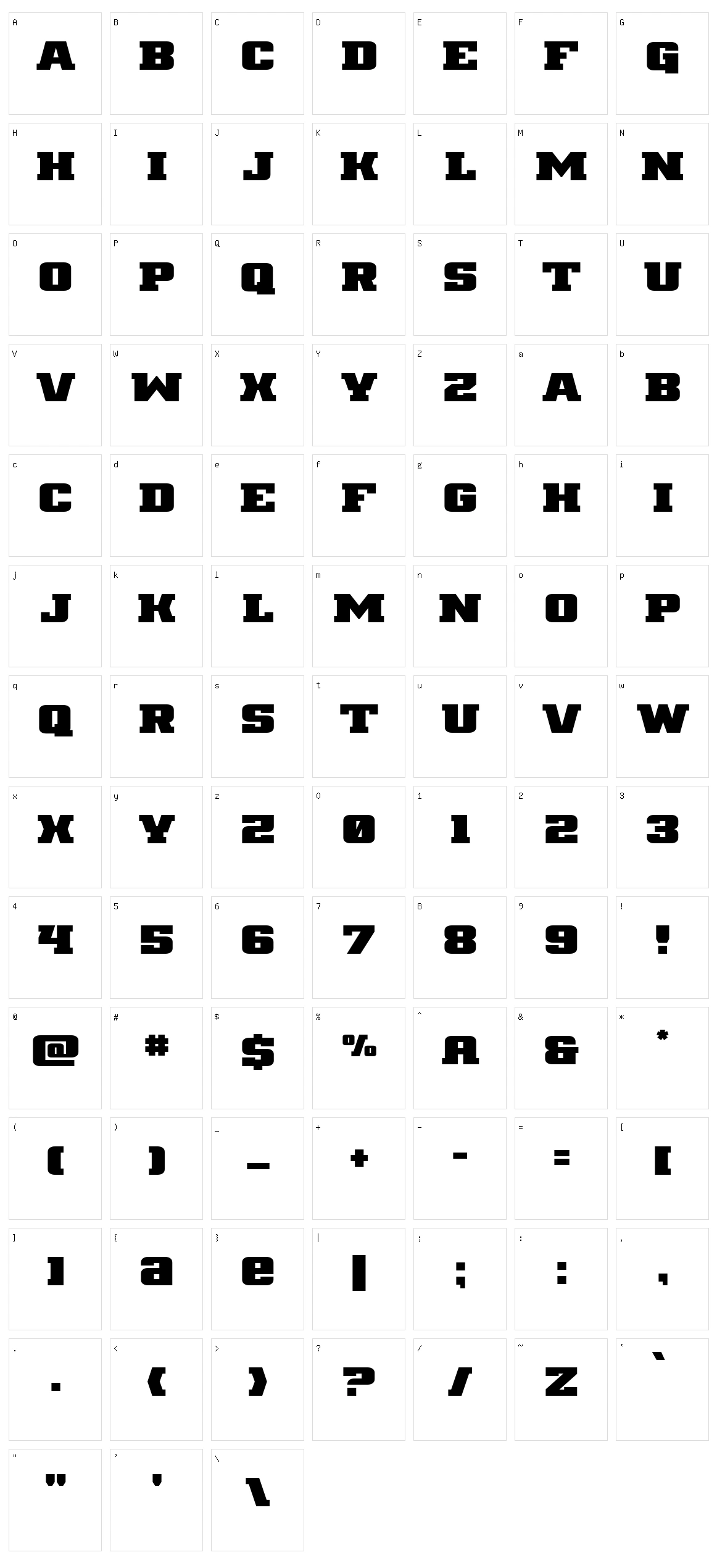
Drover Font (V ersion 1.0)
This font comes with the following 18 versions: Regular, Italic, Semi-Italic, Super-Italic, Condensed, Condensed Italic, Expanded, Expanded Italic, 3D, 3D Italic, Gradient, Gradient Italic, Halftone, Halftone Italic, Rough, Rough Italic, Title amd Title Italic.